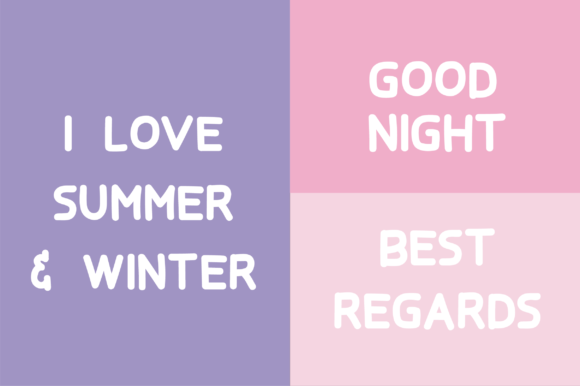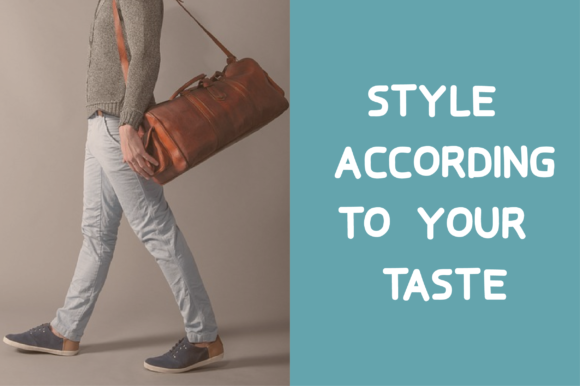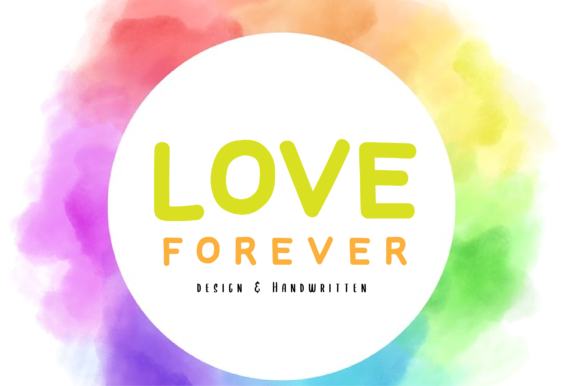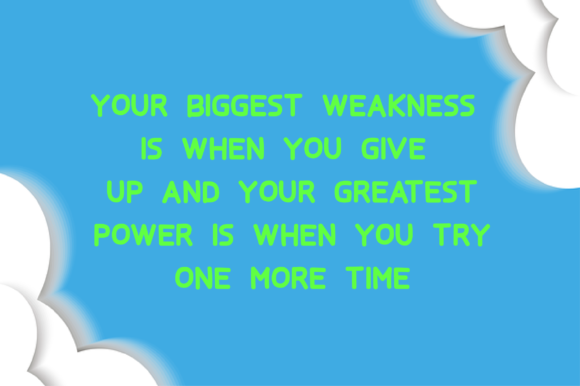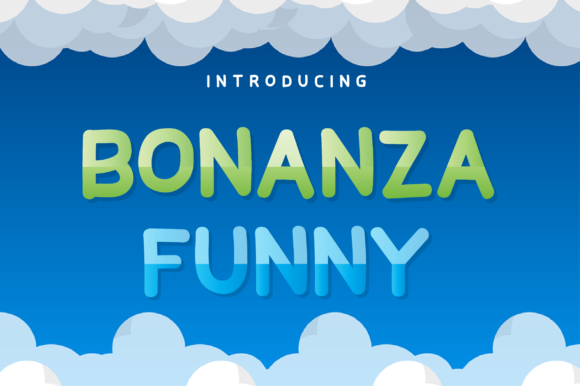
Introducing Bonanza Funny Font: The Ultimate Display Font for Creative Projects
Are you tired of using the same old fonts for your creative projects? Look no further than Bonanza Funny Font, a whimsical and cool display font that’s sure to add a bold charm to your designs. With its unique style and playful vibe, Bonanza Funny Font is the perfect choice for designers and crafters looking to make a statement.
What Makes Bonanza Funny Font So Special?
Bonanza Funny Font is a one-of-a-kind display font that’s designed to turn heads. Its bold and quirky style is perfect for creating eye-catching headlines, titles, and captions that will leave a lasting impression on your audience. Whether you’re working on a graphic design project, crafting a social media post, or creating a DIY craft, Bonanza Funny Font is sure to add a touch of personality and whimsy to your work.
Key Features of Bonanza Funny Font
- Unique and Whimsical Style: Bonanza Funny Font boasts a truly unique and whimsical style that’s sure to stand out from the crowd.
- Bold and Playful Vibe: This font has a bold and playful vibe that’s perfect for creating eye-catching designs and crafts.
- Easy to Read: Despite its bold and quirky style, Bonanza Funny Font is surprisingly easy to read, making it perfect for use in a variety of creative projects.
- Versatile: This font is versatile and can be used in a wide range of creative projects, from graphic design and social media to DIY crafts and more.
How to Use Bonanza Funny Font in Your Creative Projects
Bonanza Funny Font is incredibly easy to use and can be incorporated into a wide range of creative projects. Here are a few ideas to get you started:
- Graphic Design: Use Bonanza Funny Font to create eye-catching headlines and titles for your graphic design projects.
- Social Media: Add a touch of personality to your social media posts with Bonanza Funny Font.
- DIY Crafts: Use Bonanza Funny Font to add a personal touch to your DIY crafts, such as handmade cards and gift tags.
- Signage: Bonanza Funny Font is perfect for creating eye-catching signage for events, businesses, and more.
Tips and Tricks for Getting the Most Out of Bonanza Funny Font
Here are a few tips and tricks for getting the most out of Bonanza Funny Font:
- Experiment with Different Colors: Try pairing Bonanza Funny Font with different colors to create a unique and eye-catching design.
- Use it Sparingly: While Bonanza Funny Font is bold and playful, it can be overwhelming if used too much. Use it sparingly to create a lasting impression.
- Pair it with Other Fonts: Try pairing Bonanza Funny Font with other fonts to create a unique and visually appealing design.
Bonanza Funny Font is a truly unique and whimsical display font that’s perfect for designers and crafters looking to add a bold charm to their creative projects. With its playful vibe and easy-to-read style, Bonanza Funny Font is sure to turn heads and leave a lasting impression. So why wait? Get inspired by Bonanza Funny Font today and take your creative projects to the next level!